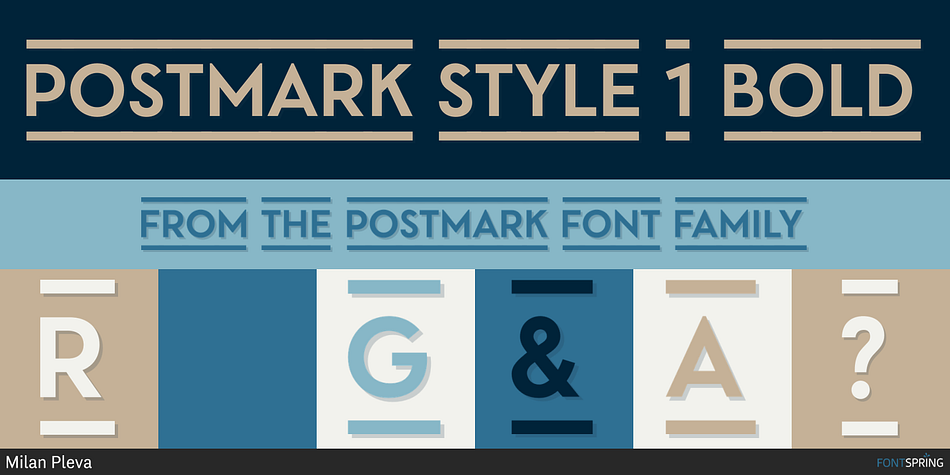
POSTMARK STYLE 1 BOLD
Postmark is a display sans font family. This typeface has four styles and was published by Milan Pleva.
Postmark is a clean geometric display font with one basic and three special styles:
Postmark
Postmark Style 1
Postmark Style 2
Postmark Style 3
Special styles were created to complement the main font and to differentiate words or sentences. Postmark is ideal for headlines, headers, logos, labels, packaging, magazines, invitations, etc.
FEATURES
Basic latin alphabet A-Z
Three special styles (each with 50 basic glyphs)
56 Accented characters
Numbers, Punctuation, Currency, Symbols, Math symbols & Diacritics
Old style figures